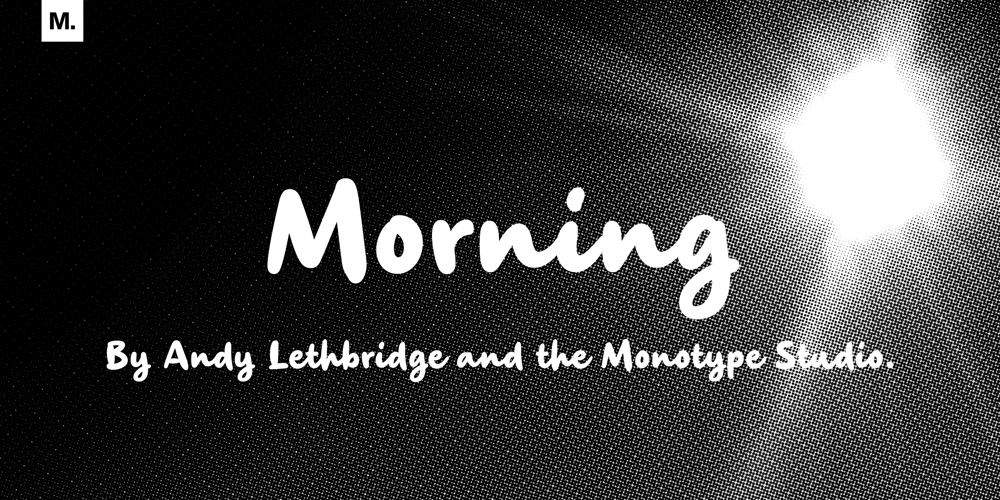
Morning
Morning font
Morning Font Family was designed by Andrew Lethbridge and published by Monotype. Morning contains 1 styles and family package options. Morning’s spirited, bouncy cursive letterforms feel like a painter’s signature; it’s a familiar style but with something of a twinkle in its eye. The style of Morning looks to imitate wet brush and ink lettering, and dances between seriousness and play. You’ll find a mix of letter connections here, and some ligatures, too.